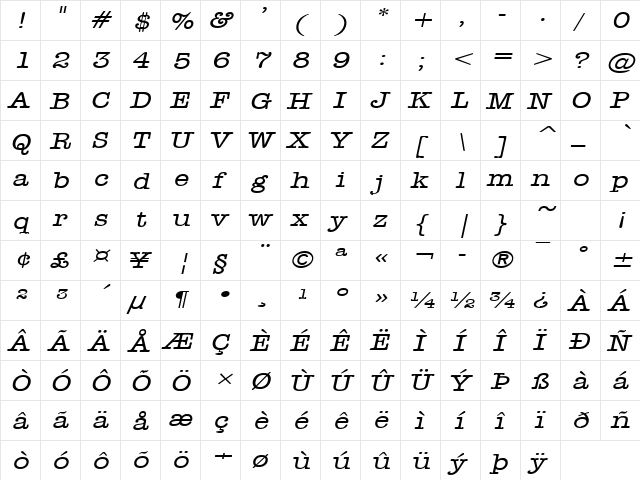
Headline Wide Italic
Design Context for Headline Wide Typeface
Headline Wide offers clean, dependable letterforms without strong stylistic allegiance, making it a practical choice for designers who need flexibility. The slanted form adds forward momentum and visual energy.
Pro Tip: Try Headline Wide for annotation and caption copy alongside an upright companion — the contrast in angle creates a dynamic but ordered typographic system.